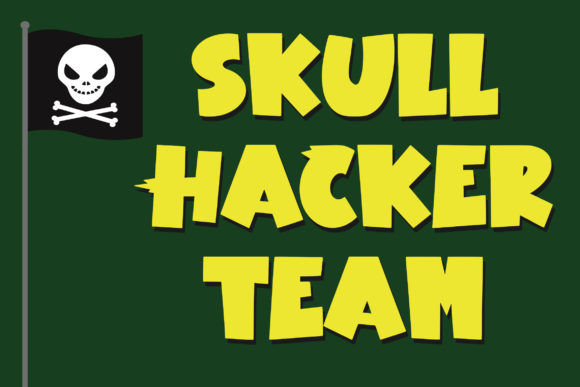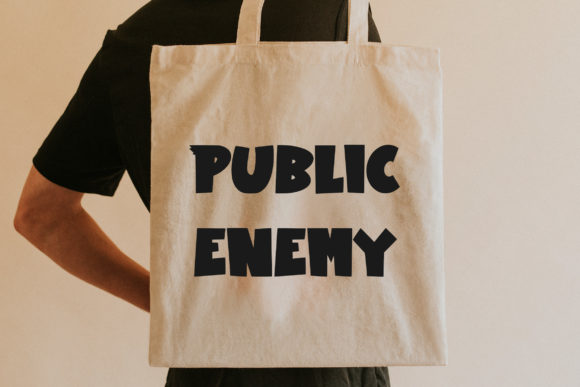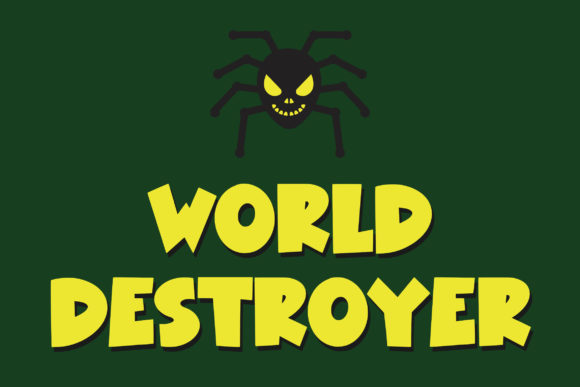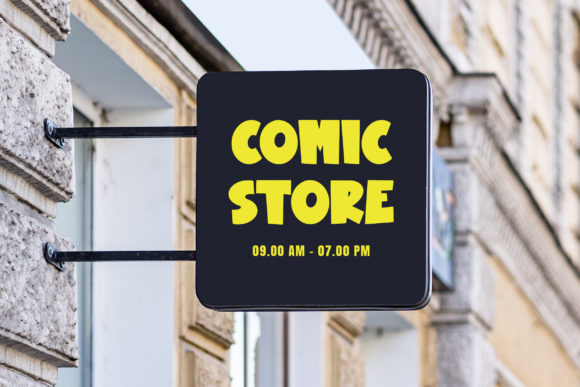
Villain Comic Font
Villain Comic is a cool and comic styled display font. Add this chunky lettered font to your favorite creations and notice how easily they stand out.